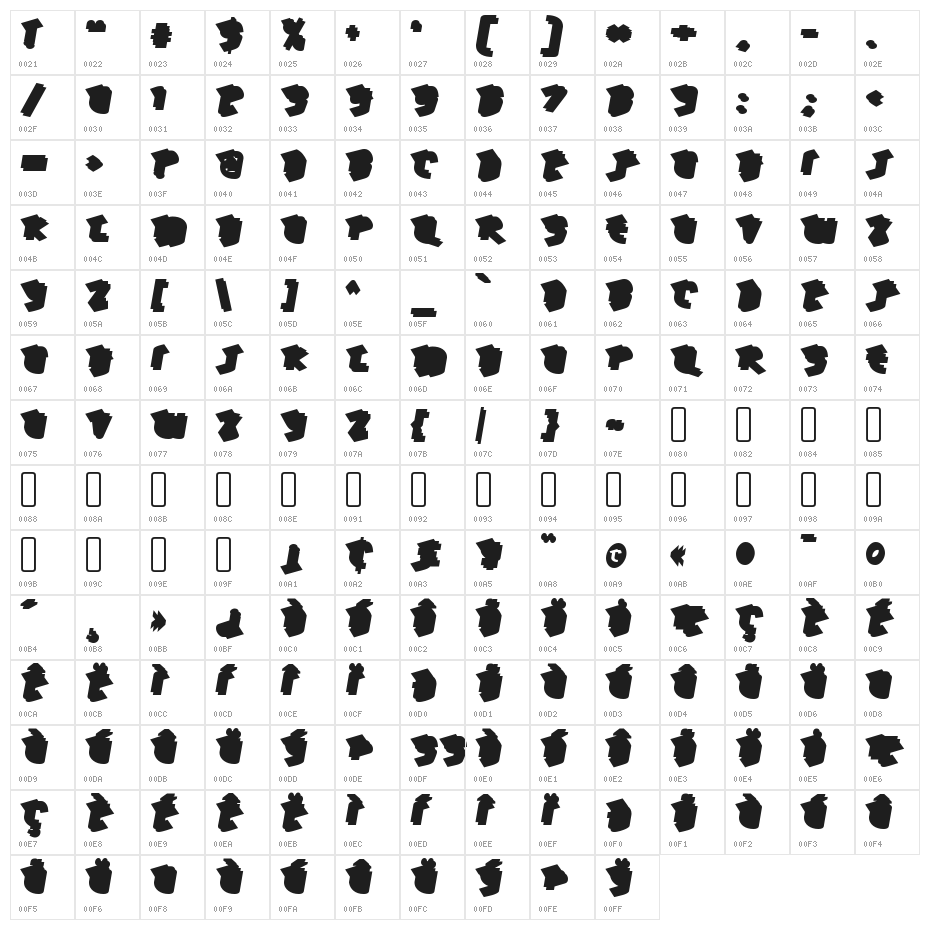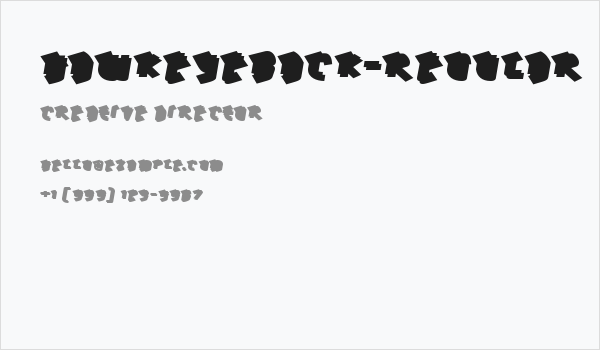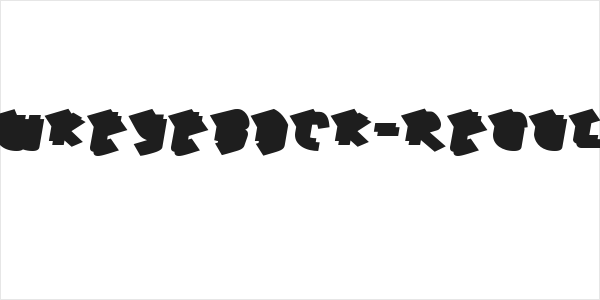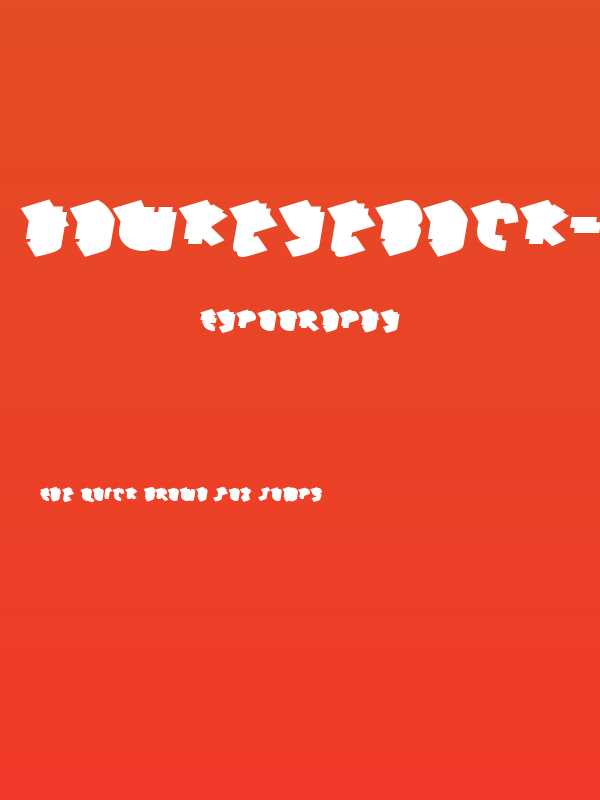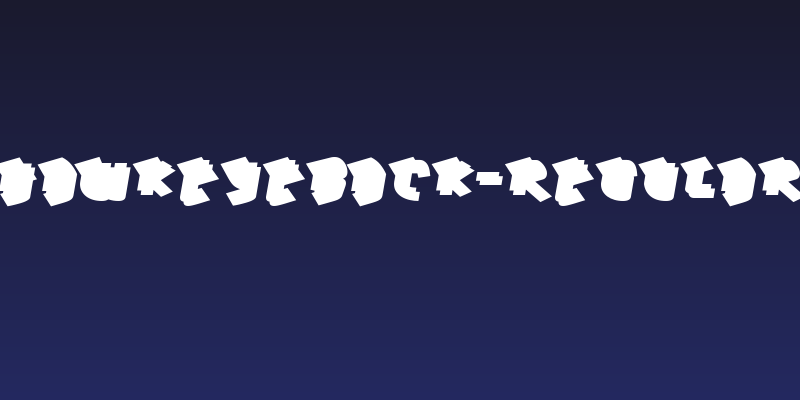
HawkeyeBack-Regular Font
HawkeyeBack-Regular Description
This font features a bold, geometric design with a distinct three-dimensional effect, giving each character a dynamic and impactful appearance. The letters are constructed with sharp angles and thick strokes, creating a sense of depth and movement. The style is reminiscent of graffiti or urban art, making it stand out with its unique and edgy aesthetic. The uppercase and lowercase letters maintain a consistent style, while the numbers and special characters complement the overall design. The font's boldness and artistic flair make it suitable for projects that require a strong visual presence.
Overall StyleModern, Urban
Use CaseHeadlines, Posters, Logos
Proposed ProjectsIdeal for street art, urban-themed designs, posters, and music album covers.